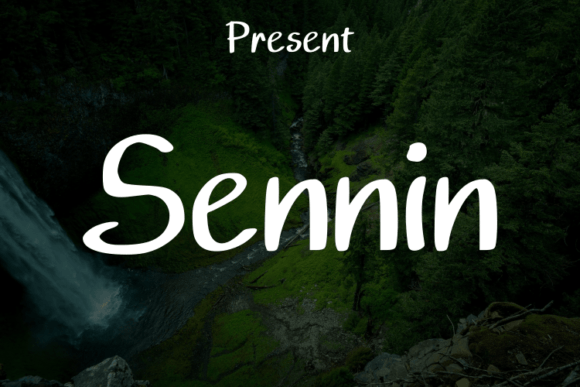
Introducing Sennin Font - The Epitome of Elegance and Luxury
In the realm of typography, there exists a font that captivates hearts and ignites imagination - Sennin Font. This script typeface, meticulously crafted by Eric Kusuma, is a symphony of simplicity and modernity, exuding an aura of elegance and luxury that is simply irresistible.
With its graceful strokes and refined curves, Sennin Font possesses a timeless beauty that transcends trends. Its unassuming presence lends itself effortlessly to a myriad of design projects, from elegant logos and sophisticated book covers to captivating movie titles and alluring fashion brands.
Step into a world of sophistication and refinement as you explore the endless possibilities of Sennin Font. Its versatility knows no bounds, making it the perfect choice for magazines, clothing, and fonts that demand attention. Create quotes that resonate with depth and emotion, using Sennin Font to elevate your words and leave a lasting impression.
Unleash your creativity and let Sennin Font guide you towards design excellence. Whether you're a seasoned designer or just starting your journey, this font will become your trusted companion, adding a touch of luxury and sophistication to every project you undertake.
Embrace the allure of Sennin Font and embark on a creative adventure where elegance meets modernity. Let your designs shine with a grace and charm that will leave your audience spellbound.